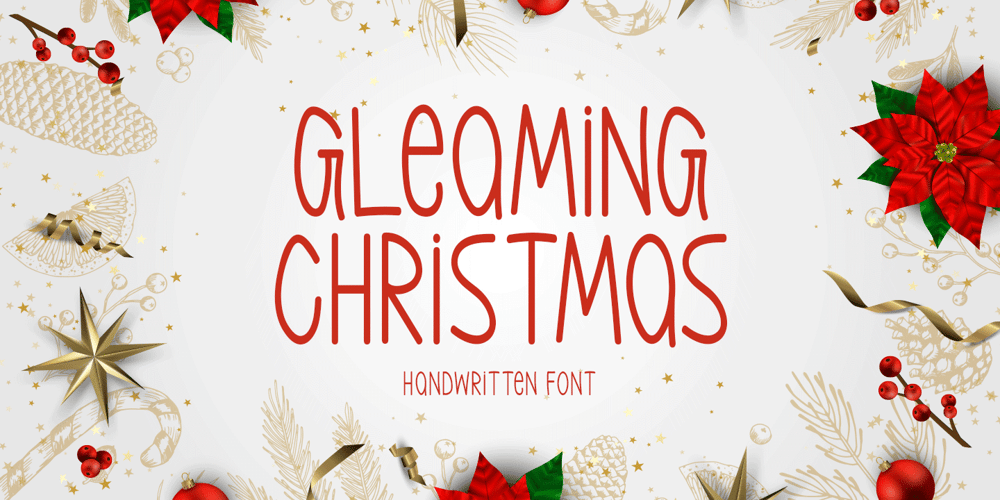
Gleaming Christmas Font Family was designed by Md Shohail Bhuian and published by Seemly Fonts. Gleaming Christmas contains 1 styles and family package options. Introducing Gleaming Christmas, a handcrafted font that exudes sweetness and friendliness. Its natural and one-of-a-kind style is a perfect match for a wide variety of design projects, letting your imagination run free.